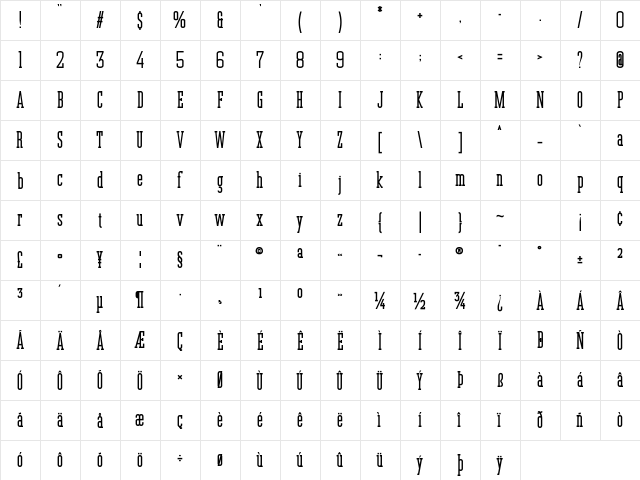
Jerome Regular
| Designer | Peterdraw |
Design Context for Jerome Typeface
Jerome takes a measured approach to typography — its balanced proportions and neutral character make it a reliable workhorse for both digital and print work.